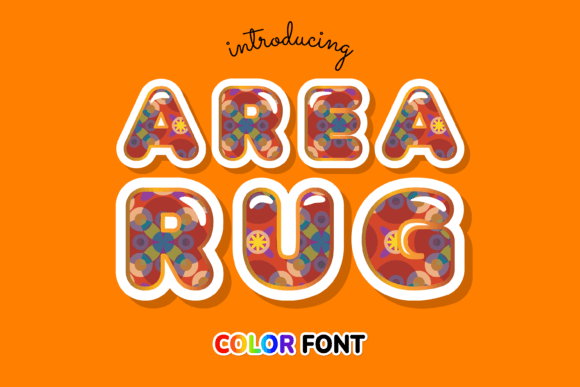
Step into the extraordinary world of Area Rug – the captivating color font that unlocks endless creative possibilities. Dive into a vibrant tapestry of colors, where every letter dances with a unique personality, adding a touch of magic to your designs.
With Area Rug, you can weave your imagination into reality, transforming ordinary words into masterpieces of art. Its playful charm and vibrant hues bring life to any project, whether you're a seasoned designer or just starting your creative journey. Unleash your inner artist and let Area Rug guide you through a kaleidoscope of colors, leaving a lasting impression on all who encounter your creations.
Visualize your designs adorned with Area Rug's enchanting appeal. Picture social media posts that pop with personality, captivating logos that demand attention, eye-catching posters that command a presence, and vibrant product packaging that entices customers. Let Area Rug be your creative companion, adding a spark of brilliance to every project you undertake.
Dive into the world of Area Rug today and unleash a symphony of colors. Experience the joy of crafting designs that resonate with your audience, leaving an indelible mark on their hearts and minds. Let Area Rug be the brush that paints your creative vision onto the digital canvas, transforming ordinary designs into extraordinary works of art.
Don't settle for ordinary fonts. Embrace the extraordinary with Area Rug. Its vibrant hues and captivating charm will ignite your imagination, propelling your designs to new heights. Let Area Rug be your creative spark, igniting a passion for design that will leave you spellbound.
So, what are you waiting for? Embark on a creative adventure with Area Rug today. Let your imagination run wild as you explore a world where colors dance and letters come alive. Transform your designs into masterpieces, leaving an unforgettable impression on all who encounter them.